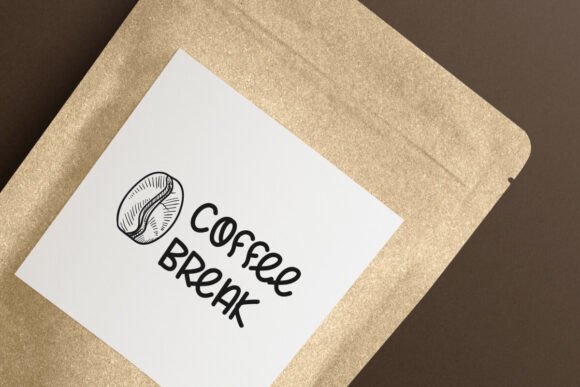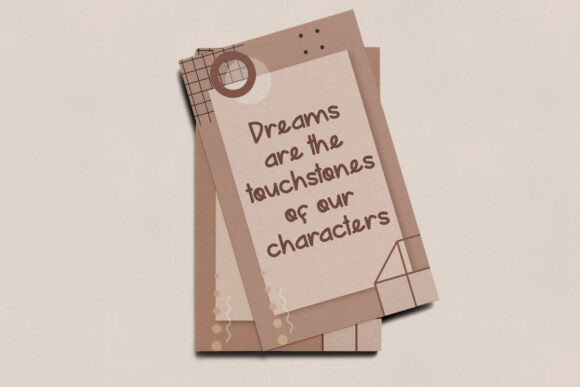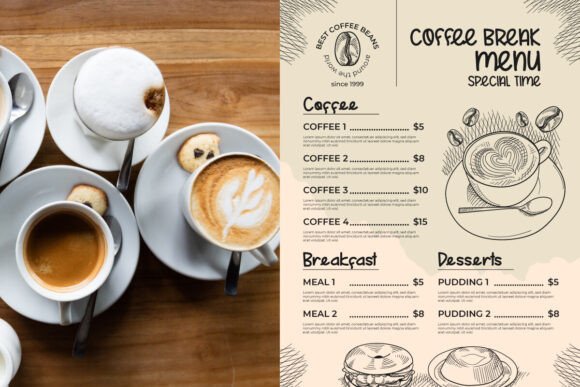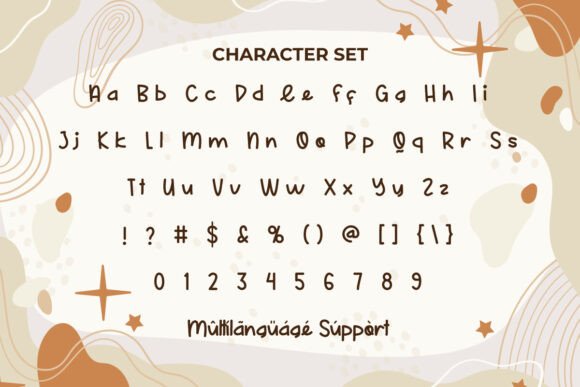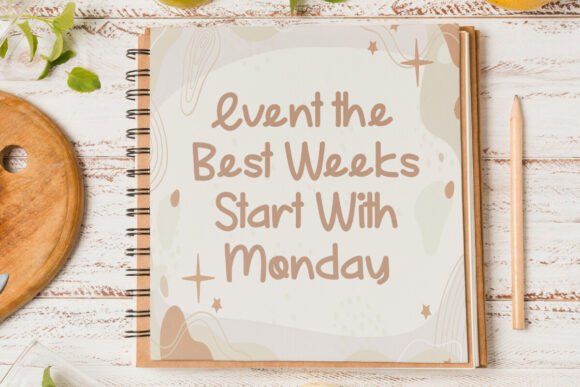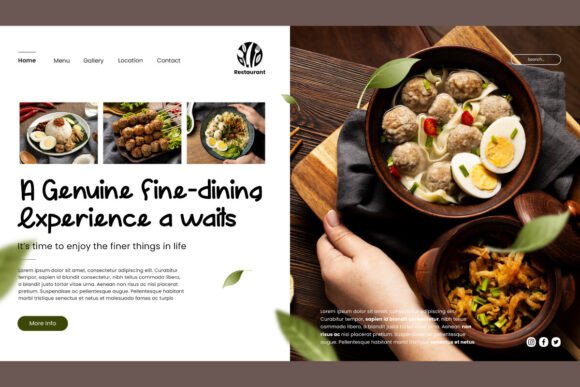
Introduction to Monday Cafe Font
As a designer, have you ever found yourself pouring over inspiration boards, searching for the perfect font to elevate your next creative project? The moment of truth arrives when you stumble upon a font that speaks to you, one that captures the essence of your vision and brings it to life. For me, that moment came when I discovered the delightful Monday Cafe Font, a free download that’s been a game-changer in my design workflow.
With its high-quality, handcrafted design, Monday Cafe Font is a valuable resource for designers looking to add a touch of whimsy and personality to their work. This charming font is perfect for a variety of creative projects, from brochure headers to menu sheets, and its transparent background makes it easy to layer with other design elements.
Key Features of Monday Cafe Font
- High-quality, professional font design suitable for various creative projects.
- Includes a transparent background, allowing for easy layering and customization.
- Designed with a modern aesthetic, perfect for modern design projects and presentations.
Honest Review: Monday Cafe Font
I recently came across the Monday Cafe Font, and I’m excited to share my thoughts on this design resource. As a designer, I’m always on the lookout for high-quality fonts that can elevate my creative projects. The Monday Cafe Font did not disappoint.
- ✨ Elegant and modern design aesthetic that’s perfect for cafes, restaurants, and other food-related businesses.
- ✨ Includes a transparent background option, making it easy to place over images or backgrounds.
- ⚠️ Limited character set, which may not be suitable for longer texts or paragraphs.
- ⚠️ May not be as versatile as other fonts, making it best suited for specific design projects.
Overall, I’m impressed with the Monday Cafe Font. It’s a great addition to any design resource library, and its elegant design aesthetic makes it perfect for creative projects related to food and beverages. With its transparent background option and free download, it’s definitely worth checking out.
Monday Cafe Font
The Monday Cafe Font is a high-quality design resource that offers a free download for creative projects. It’s a versatile font that can be used for various purposes, from branding to typography.
Tips for Getting the Most Out of Monday Cafe Font
To get the most out of the Monday Cafe Font, consider the following tips:
- Use the font with a transparent background to create a seamless design.
- Experiment with different font sizes and styles to find the perfect fit for your project.
- Combine the Monday Cafe Font with other design elements to create a visually appealing design.
The Monday Cafe Font is commonly used for:
- Typography and text-based designs
- Menu boards and signage